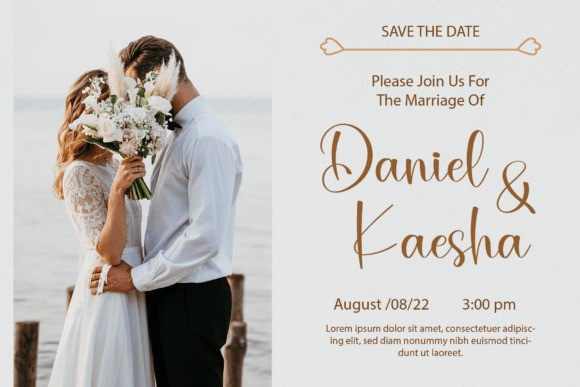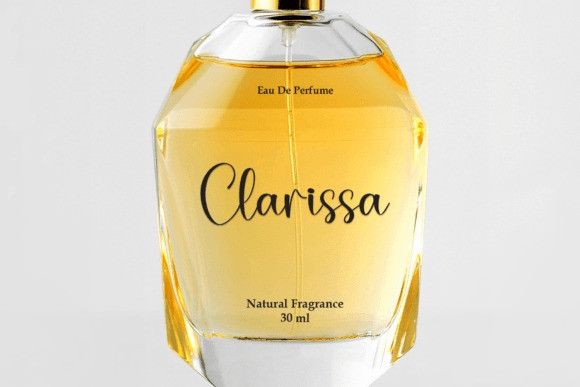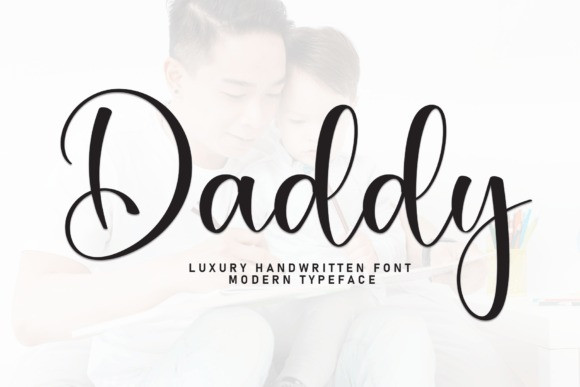
Daddy Handcrafted Font
Daddy Handcrafted Font is a charming handwritten font imbued with a sense of freshness and casual elegance. Its fluid strokes and organic lines evoke a laid-back vibe, making it perfect for various design projects. Whether used for branding, invitations, or social media graphics, Daddy adds a touch of warmth and personality.